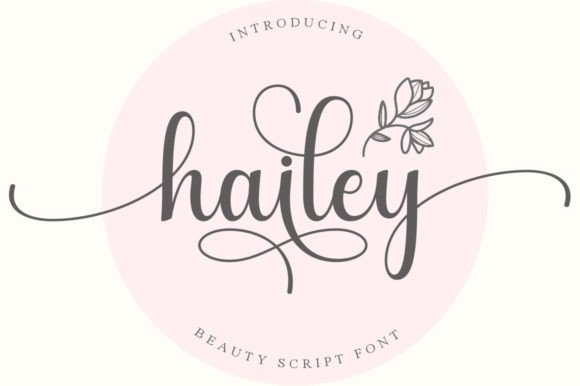
Introducing the Hailey Font
Are you looking for the perfect font for your creative project? Look no further! The Hailey font by Fadlilah Studio is the perfect solution for your design needs. The Hailey font is a fully script font family that is both elegant and timeless. With its delicate and flowing handwriting, it is perfect for any project, large or small.
The Benefits of the Hailey Font
The Hailey font is one of the best script font families out there. With its unique, distinct style, it will be sure to make your design stand out. Not only is the font beautiful and stylish, it is also incredibly versatile. It can be used in all kinds of projects, from graphic and web design to logos and branding. Plus, it is PUA encoded, which means it is easy to access all of the glyphs and swashes. This font is definitely one of the most powerful and useful font families out there.
Using the Hailey Font in Your Projects
The Hailey font is great for all kinds of projects. It is perfect for graphic design projects such as logos, branding, and websites. It is also great for print materials such as flyers, brochures, and posters. Plus, it is perfect for wedding invitations, greeting cards, and other creative projects. So no matter what kind of project you are working on, the Hailey font is the perfect way to make it look stylish and unique.
Conclusion
The Hailey font is the perfect font for any of your creative projects. With its delicate and flowing handwriting, it is sure to make your designs stand out. Plus, it is incredibly versatile and easy to access all of the glyphs and swashes. So if you are looking for the perfect script font family to use in your next project, look no further than the Hailey font by Fadlilah Studio.